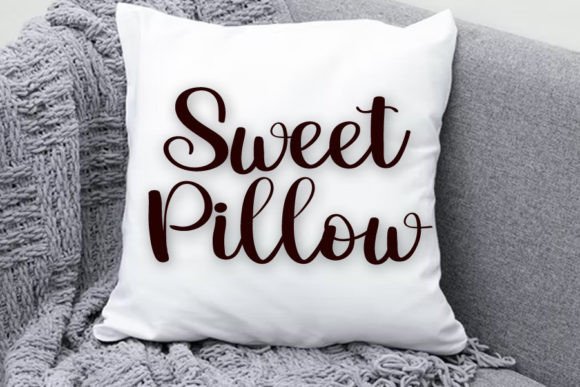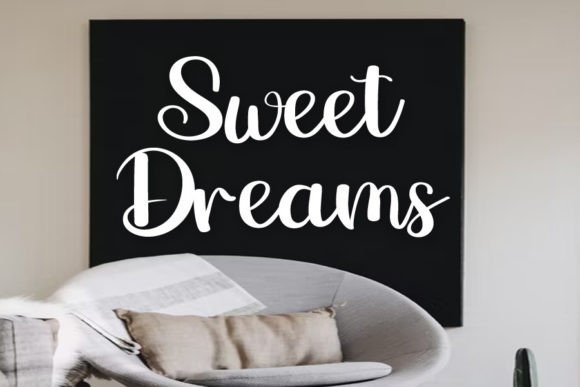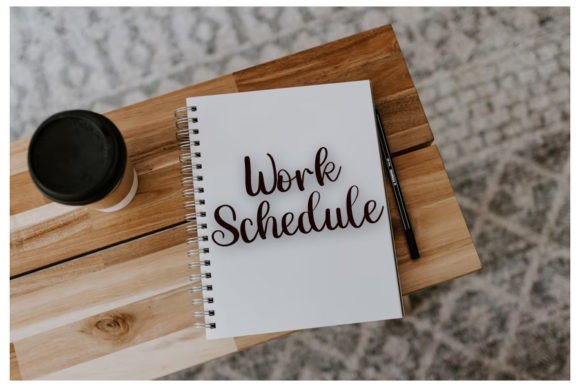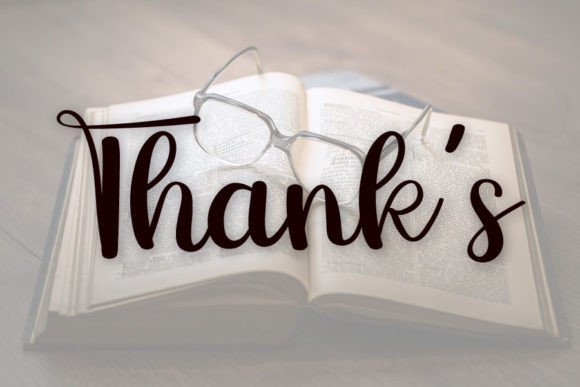
Rainly Font
About Rainly Font
Rainly emerges as a refreshing and beautiful font, well-suited for diverse design applications, including YouTube banners, cover logo mockups, wedding invitations, ID cards, flyers, and crafts. Leveraging this font has the potential to contribute to the progress and development of your business. Beyond its functional aspects, Rainly is characterized by its simplicity and uniqueness, making it a valuable asset for your creative endeavors.
The versatility of Rainly makes it an excellent choice for a variety of design projects. From the dynamic and engaging realm of YouTube banners to the refined aesthetics of wedding invitations, this font adapts seamlessly to different contexts, injecting a sense of freshness and beauty into your designs.
Incorporating Rainly into your designs not only enhances their visual appeal but also communicates a modern and innovative touch. This can play a crucial role in projecting a contemporary image for your business, contributing to its growth and development by capturing the attention of your audience.
The simplicity of Rainly ensures clear communication of your message, making it effective for conveying information across different design materials. Simultaneously, its unique characteristics provide a distinctive identity to your designs, fostering memorability and recognition.
In summary, Rainly transcends its role as a font and becomes a strategic design element. Its fresh and beautiful qualities, combined with simplicity and uniqueness, position Rainly as a valuable tool for businesses and creatives alike. By incorporating this font into your design arsenal, you have the opportunity to infuse your projects with a modern and distinctive flair, potentially leading to enhanced business progress and development.